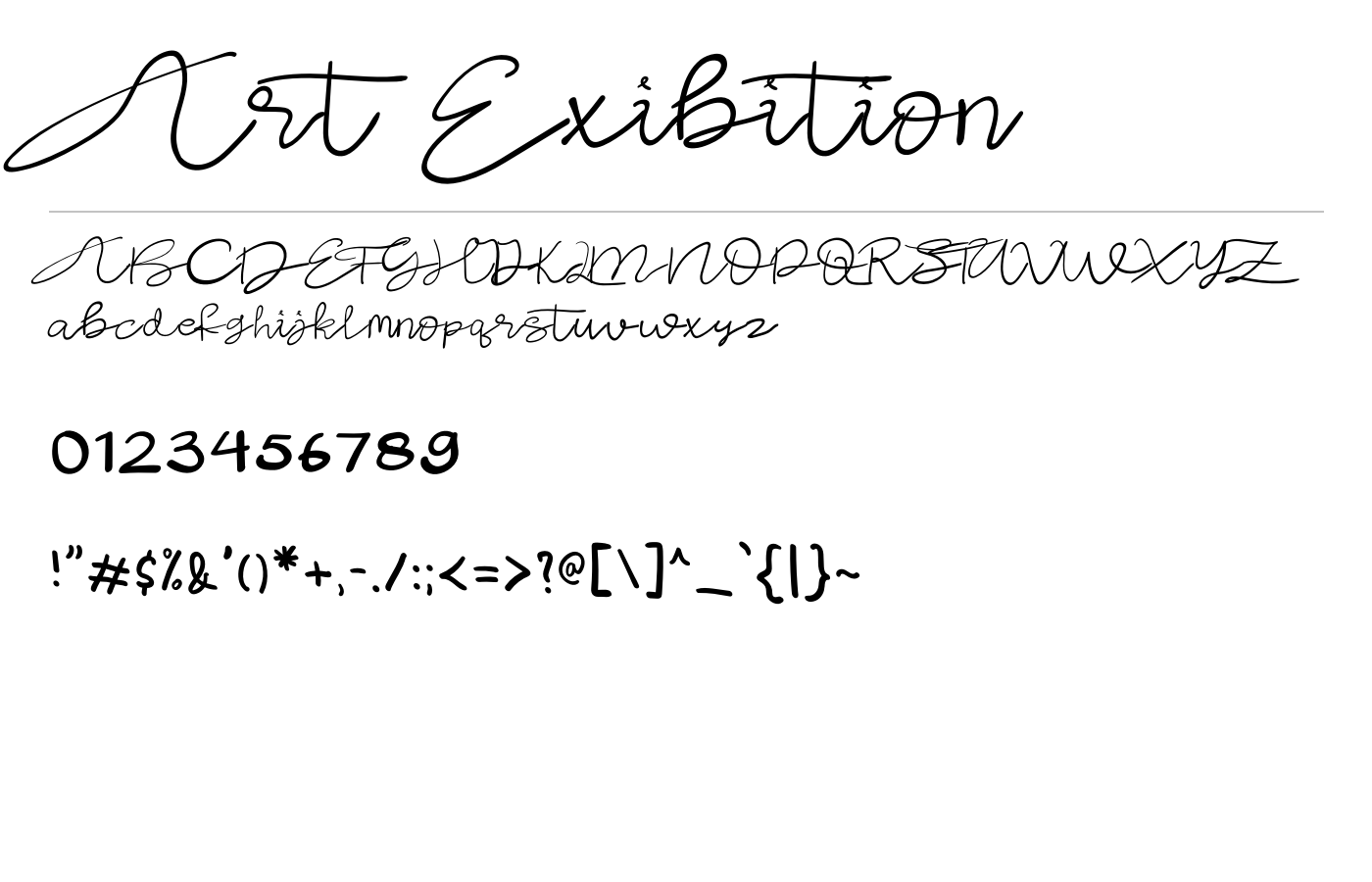
Art Exhibition is a delicate, handwritten script font that combines fluid, cursive letterforms with a casual and artistic flair. It features a light weight and tall, slender characters with minimal stroke contrast, creating an airy and elegant appearance that suits creative and personal design projects. Ideal for invitations, branding, and editorial accents, this font conveys a playful yet refined style perfect for making a unique, handcrafted impression.
Art Exibition Font
About Art Exibition Font